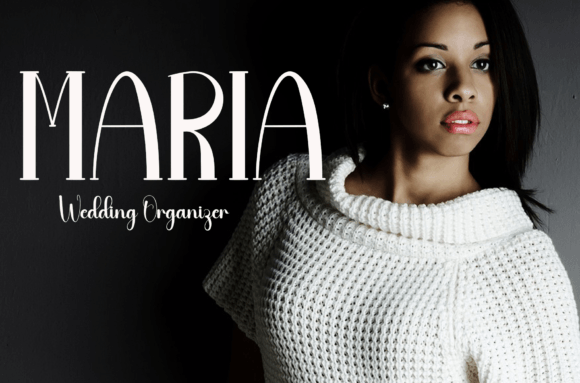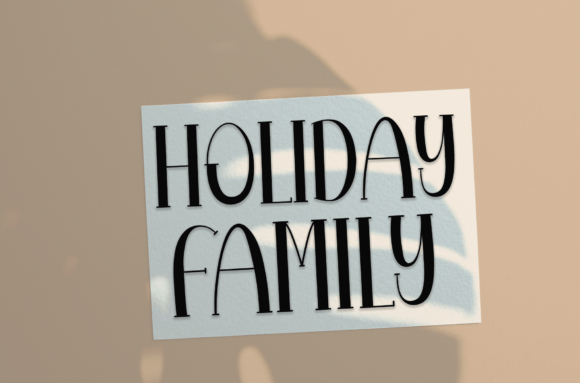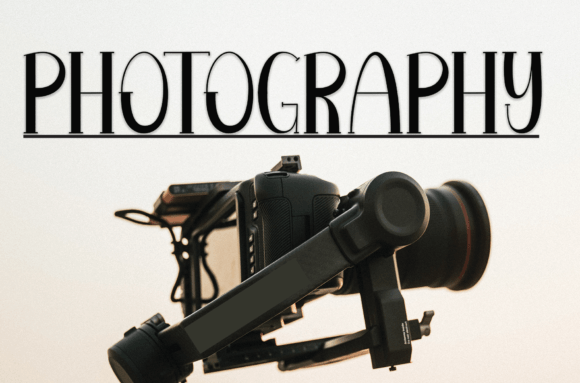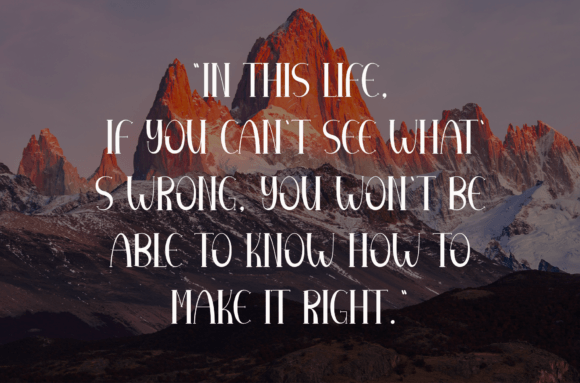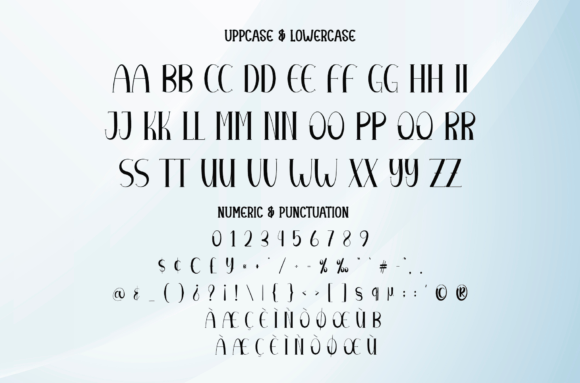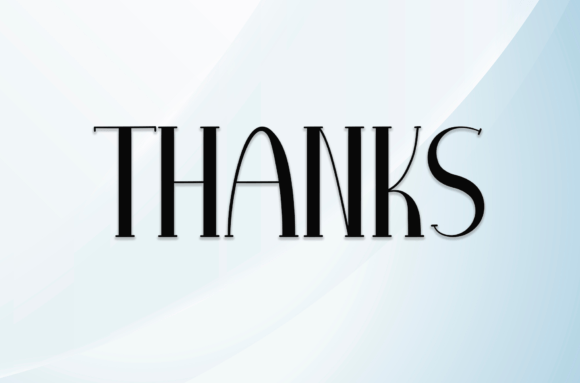
Introducing Backdrop Font: The Sweet and Friendly Handwritten Font for Your Design Needs
Are you a designer or crafter looking for a font that can add a touch of warmth and personality to your designs? Look no further than Backdrop Font, a sweet and friendly handwritten font that’s perfect for a variety of projects. In this article, we’ll take a closer look at Backdrop Font, its features, and how you can use it to elevate your designs.
What is Backdrop Font?
Backdrop Font is a beautiful, handwritten font that’s designed to bring a touch of freshness and neatness to your designs. With its sweet and friendly tone, this font is ideal for writing wedding invitations, cards, or any other design that might need a fun touch. Whether you’re a professional designer or a crafter, Backdrop Font is a versatile font that can be used for a wide range of projects.
Key Features of Backdrop Font
So, what makes Backdrop Font so special? Here are some of its key features:
- Sweet and Friendly Tone: Backdrop Font has a warm and inviting tone that’s perfect for designs that require a personal touch.
- Handwritten Style: This font has a beautiful, handwritten style that’s fresh and neat, making it perfect for a variety of projects.
- Versatile: Backdrop Font can be used for a wide range of projects, from wedding invitations and cards to posters and social media graphics.
- Easy to Read: This font is easy to read, even at small sizes, making it perfect for designs that require a lot of text.
How to Use Backdrop Font in Your Designs
Now that we’ve covered the features of Backdrop Font, let’s talk about how you can use it in your designs. Here are some ideas to get you started:
- Wedding Invitations: Backdrop Font is perfect for writing wedding invitations, save-the-date cards, and other wedding-related designs.
- Cards and Stationery: This font is great for designing cards, stationery, and other paper goods that require a personal touch.
- Posters and Flyers: Backdrop Font can be used to create eye-catching posters and flyers for events, promotions, and other marketing campaigns.
- Social Media Graphics: This font is perfect for designing social media graphics, such as Instagram posts and Facebook covers.
Tips for Using Backdrop Font Effectively
To get the most out of Backdrop Font, here are some tips to keep in mind:
- Pair it with Other Fonts: Backdrop Font looks great when paired with other fonts, such as sans-serif fonts or script fonts.
- Use it for Headings and Titles: This font is perfect for headings and titles, but you can also use it for body text if you want to create a more informal look.
- Experiment with Colors: Backdrop Font looks great in a variety of colors, so don’t be afraid to experiment and find the perfect color for your design.
In conclusion, Backdrop Font is a sweet and friendly handwritten font that’s perfect for designers and crafters who want to add a touch of warmth and personality to their designs. With its fresh and neat style, this font is ideal for a variety of projects, from wedding invitations and cards to posters and social media graphics. By following the tips outlined in this article, you can use Backdrop Font to create beautiful and effective designs that will capture the attention of your audience.